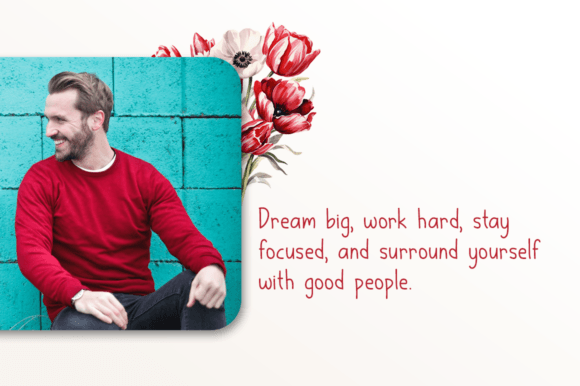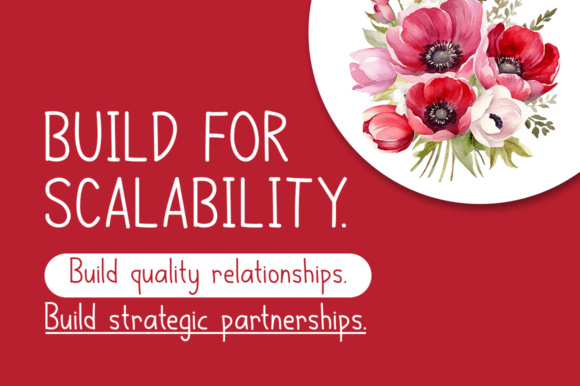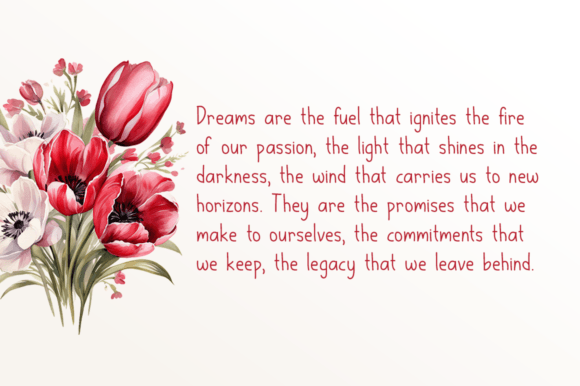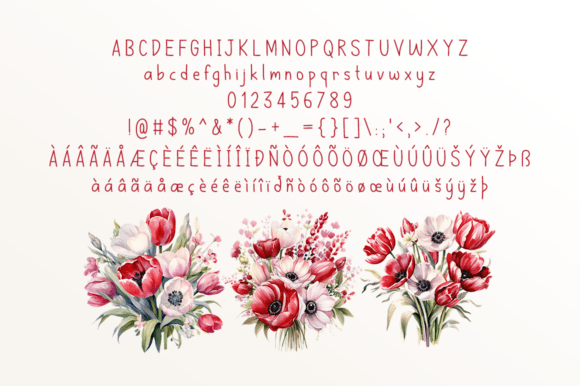
Introduction to Simple Pleasure Font
Have you ever been working on a creative project, and suddenly, the perfect font pops into your mind, elevating the entire design? For me, that moment was when I stumbled upon the Simple Pleasure Font. Its effortless charm and whimsical feel instantly captivated me, and I knew I had to learn more about this versatile design resource.
With its high quality and distinctive handwritten style, the Simple Pleasure Font has the power to transform any project into a masterpiece. Whether you’re working on a branding campaign, a wedding invitation, or a social media graphic, this font is sure to add a personal touch that sets your design apart from the rest.
Key Features of Simple Pleasure Font
- High-quality design: Simple Pleasure Font is designed with precision and attention to detail, making it perfect for creative projects.
- Large character set: Simple Pleasure Font includes a wide range of characters, including uppercase and lowercase letters, numbers, and punctuation marks.
- Perfect for creative projects: Simple Pleasure Font is ideal for use in creative projects, such as logos, branding, and advertising materials.
Honest Review: Simple Pleasure Font
I recently had the chance to dive into the Simple Pleasure Font, a design resource that caught my attention with its promise of a clean and elegant aesthetic. As a designer, I was eager to put it to the test and see if it could deliver on its high quality promise.
- The Simple Pleasure Font is extremely versatile and can be used for a wide range of creative projects, from editorial to branding.
- The font’s high quality is evident in its smooth lines and precise letterforms.
- The Simple Pleasure Font may not be the best choice for projects that require a bold or dramatic font.
- The font’s simplicity may make it seem a bit generic for some designers.
Overall, I was impressed with the Simple Pleasure Font’s potential for adding a touch of elegance to creative projects. While it may have some limitations, its high quality and versatility make it a solid choice for designers looking for a clean and simple font.
Designing with Simple Pleasure Font
Tips for Getting the Most Out of Simple Pleasure Font
Here are some tips for getting the most out of the Simple Pleasure Font: experiment with different font sizes and styles, use it in combination with other design elements, and make sure to use it consistently throughout your design.
The Simple Pleasure Font is commonly used in a variety of design projects, including business cards, brochures, and social media graphics. Its clean and modern aesthetic makes it a great choice for any creative project.